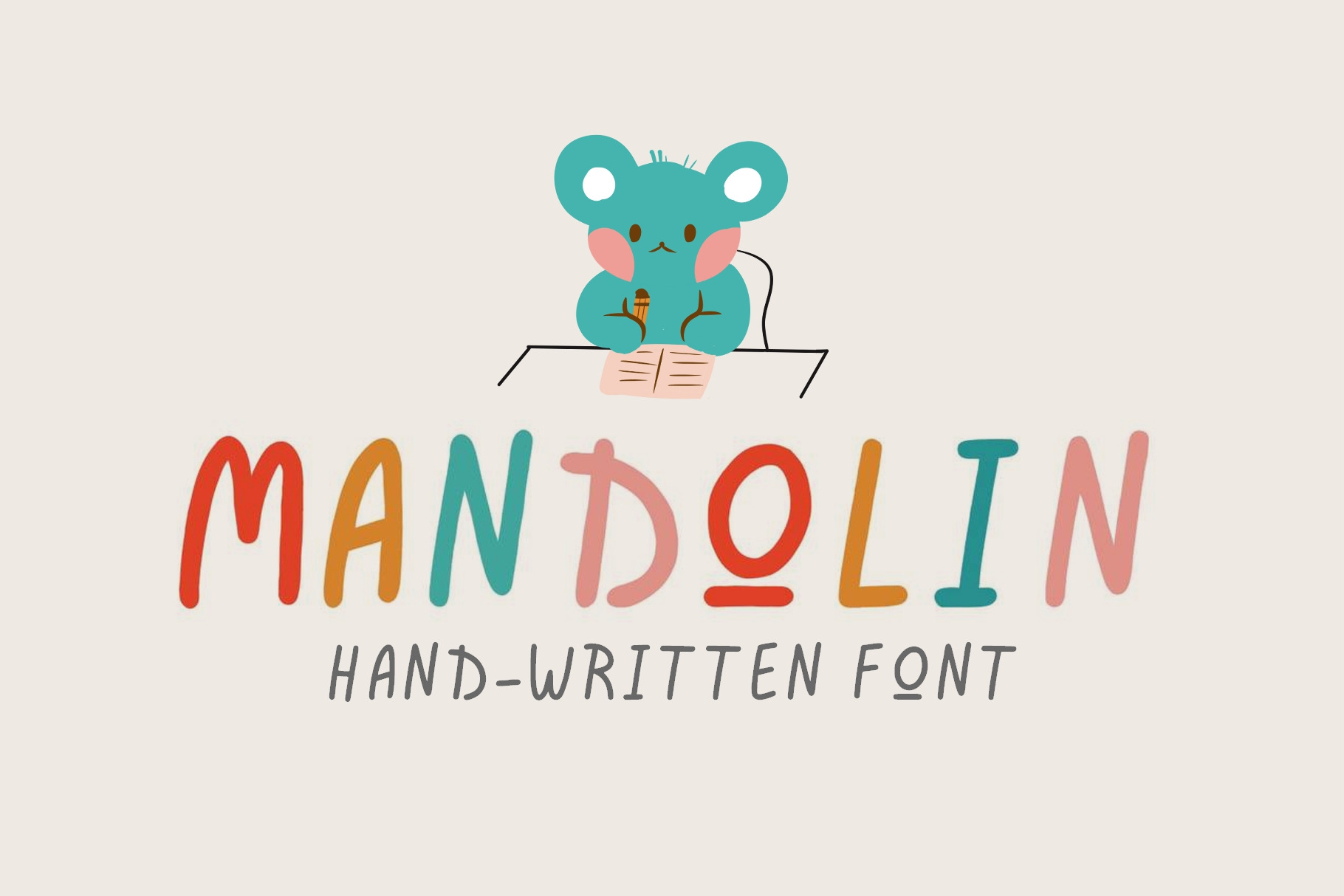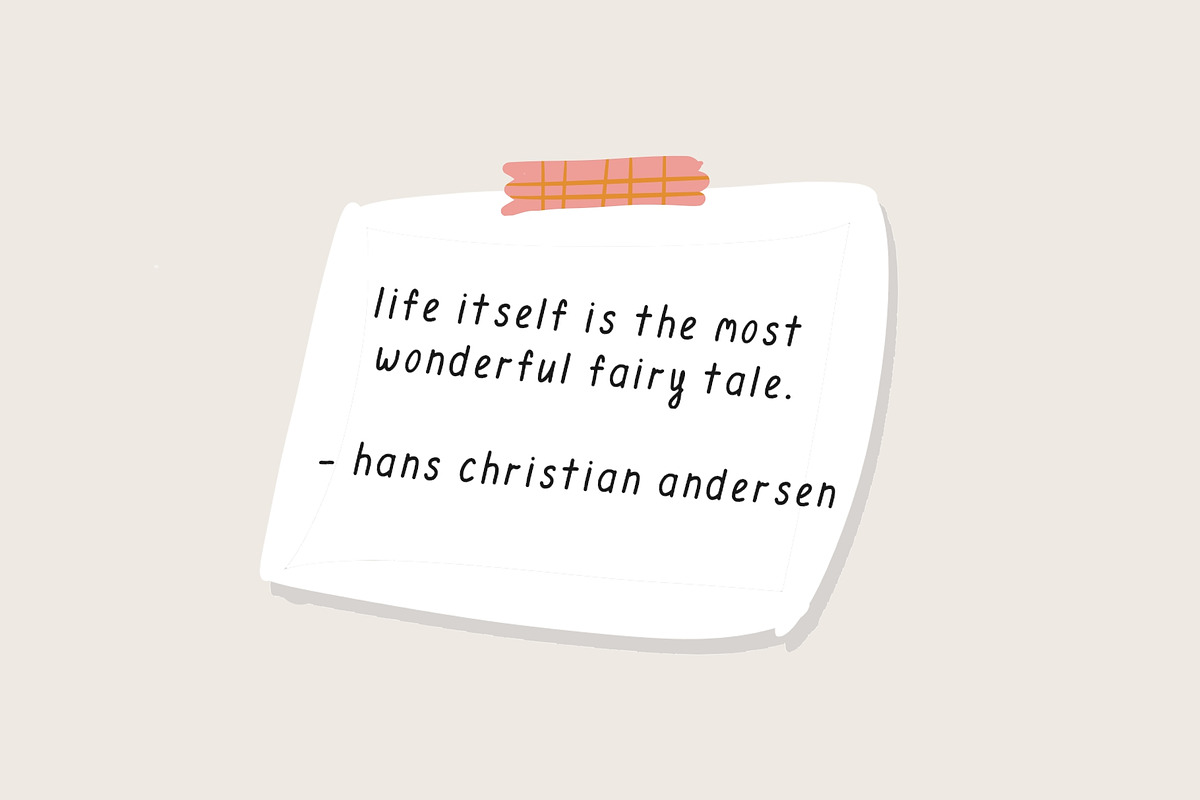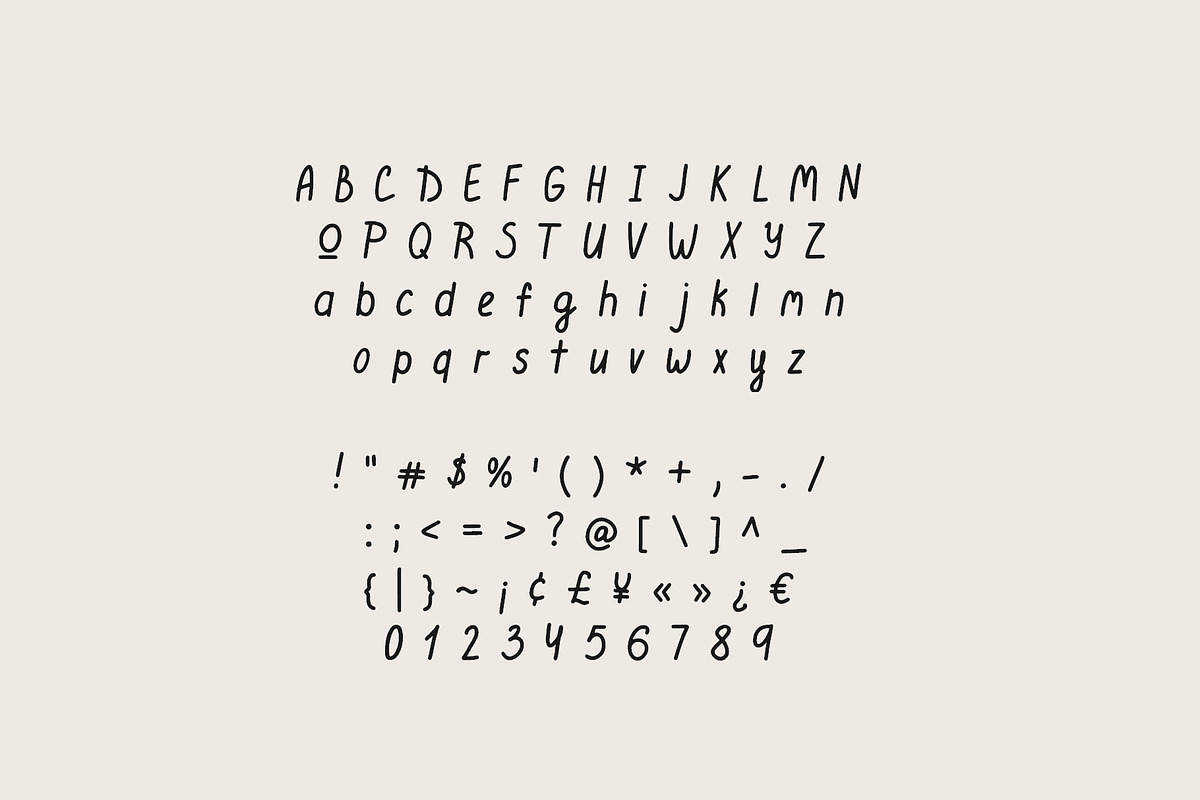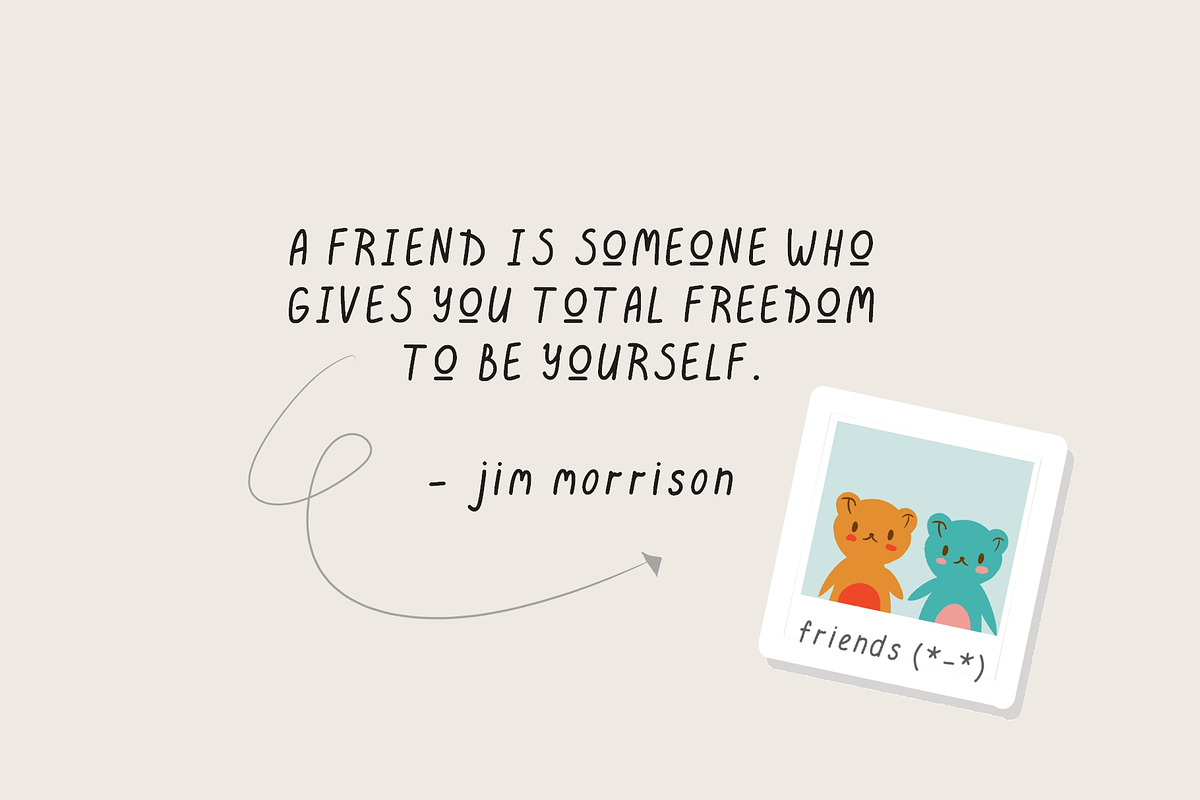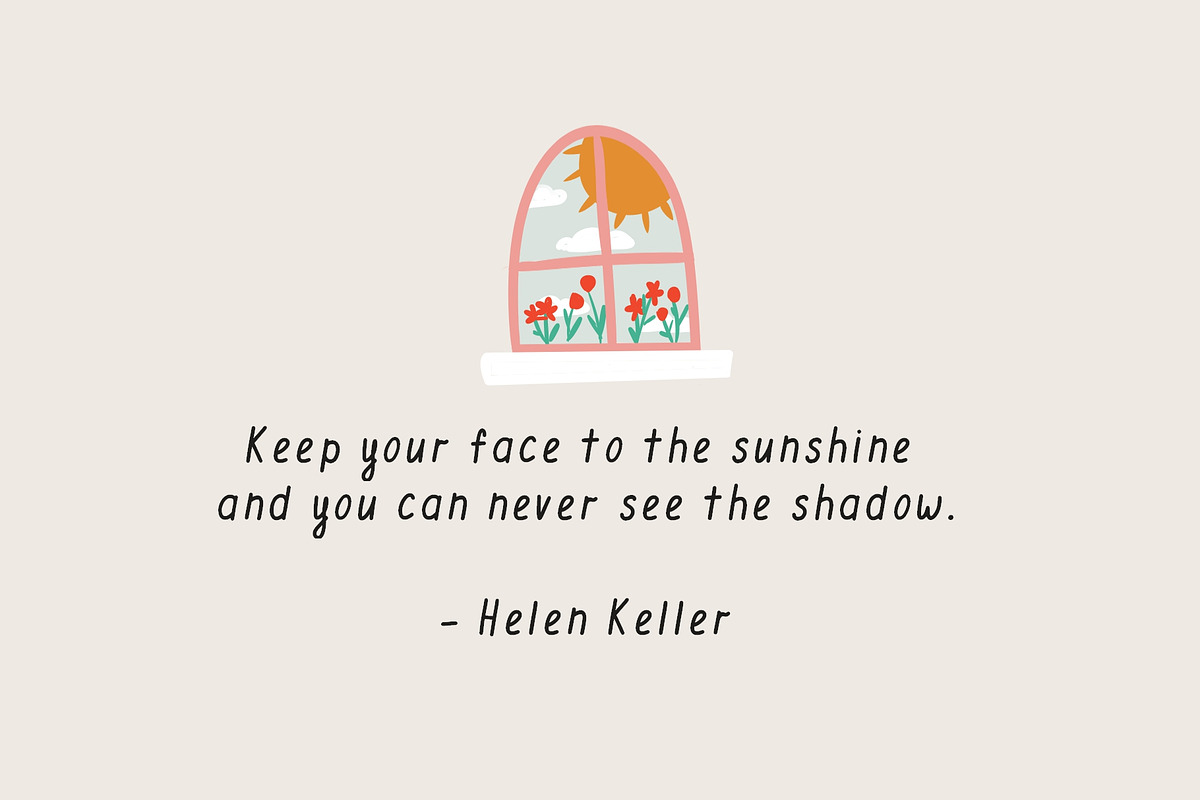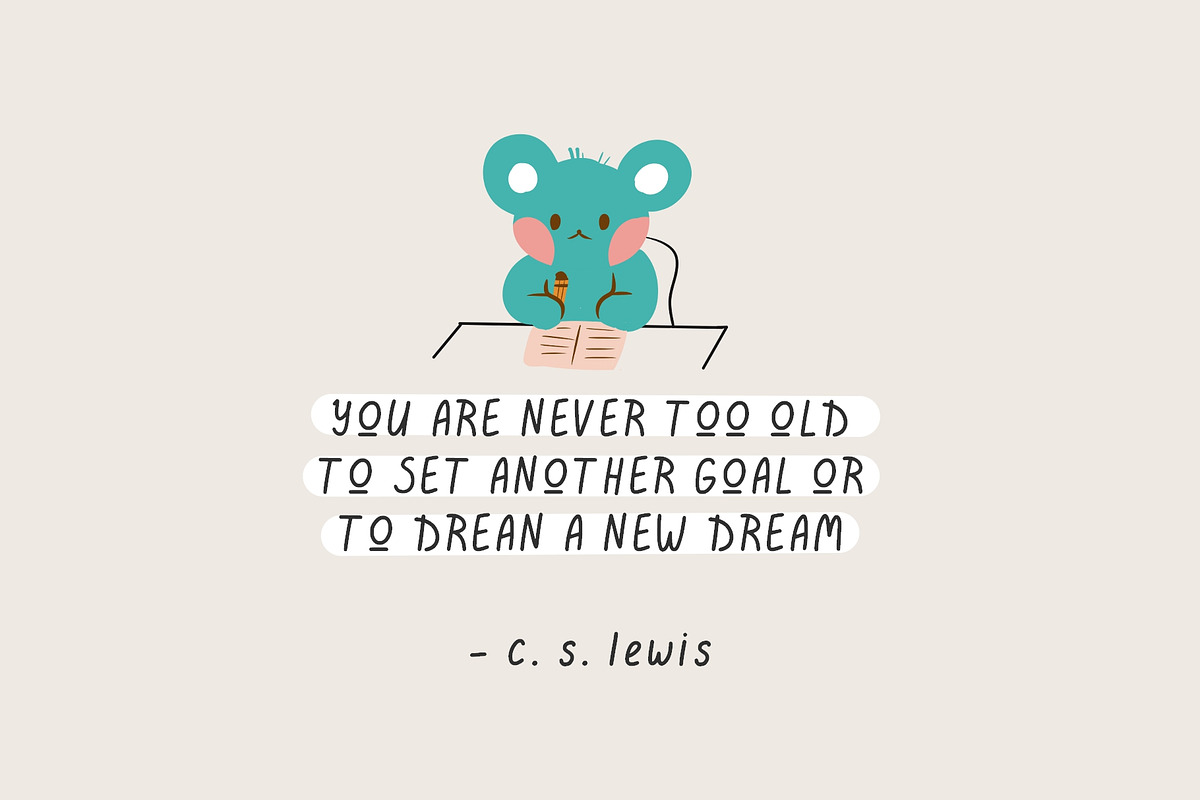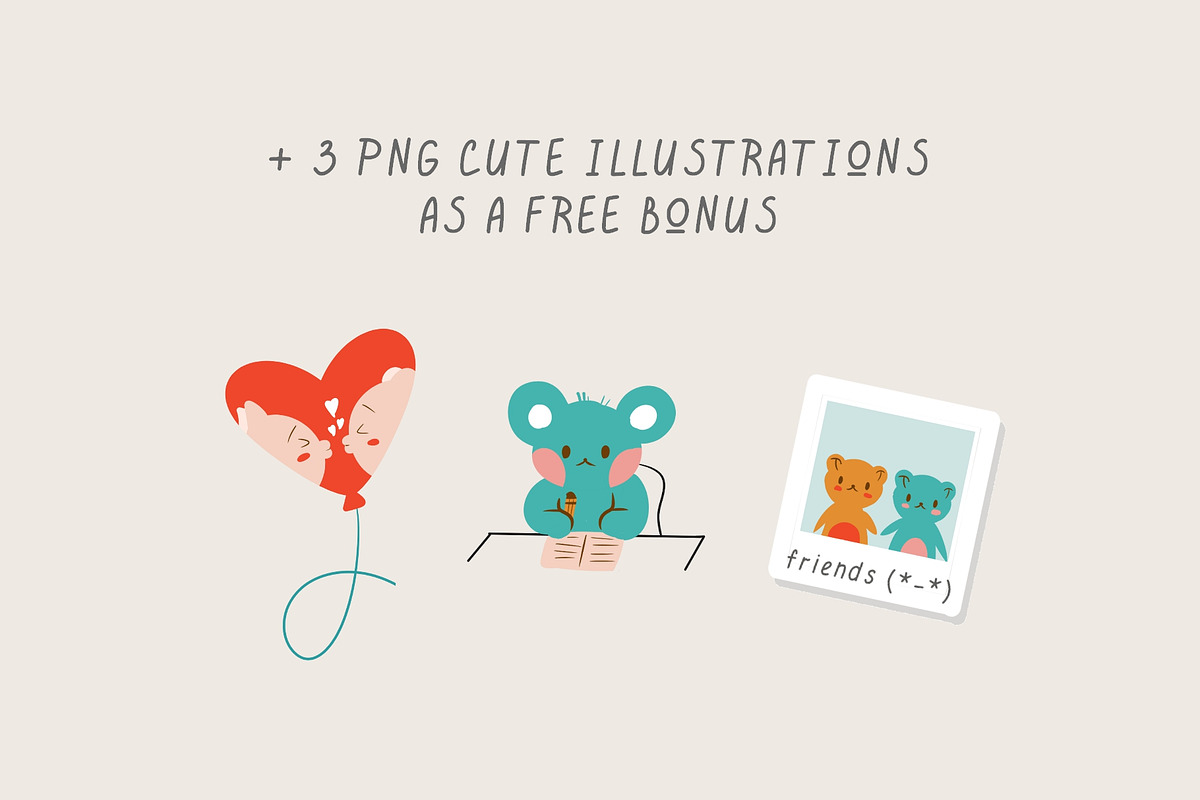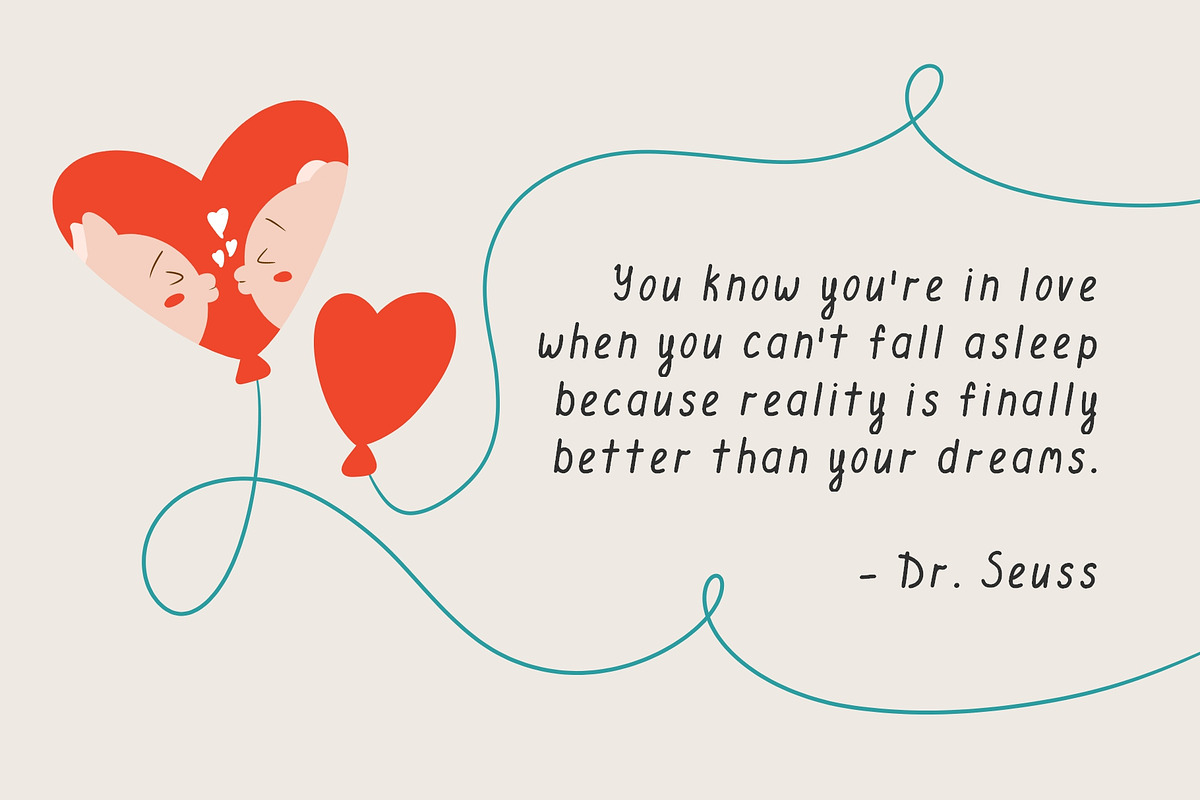
Mandolin Playful Handwritten Font
Perfect font if you want to add a handwritten touch to your projects.
You can use it in logo design, poster design, social media, ads, notes and many more!